Choosing the right font is crucial for any magazine as it can completely transform its look and feel, making it more appealing and reader-friendly. Fonts play a crucial role in setting the tone and personality of your publication. From elegant serifs that convey sophistication, to sleek sans-serifs that give a modern edge, these fonts are chosen for their versatility, readability, and style. In this article, we will explore 16 stunning fonts available in Canva that are perfect for magazine layouts. Whether you want to refresh your magazine’s design or start a new publication, these fonts will help you create layouts that are not only visually striking but also resonate with your readers.Â
1. Alegreya
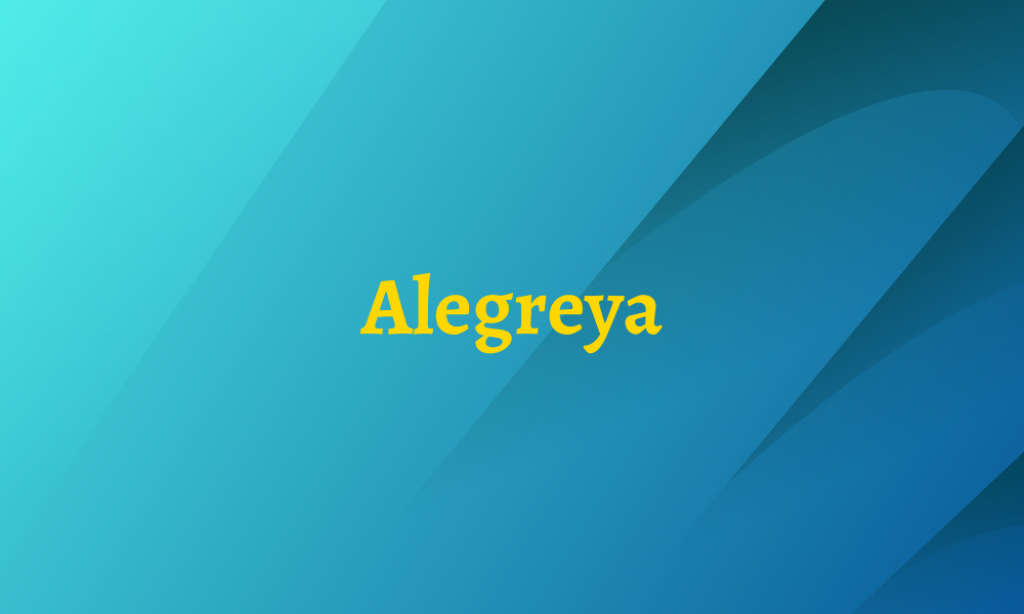
Why it is an Ideal Magazine font: Alegreya is a serif font that brings a dynamic and varied rhythm to the page, making it engaging for readers. Its slightly condensed letters with rounded features give it a warm and accessible appearance. It’s ideal for magazines because it’s highly readable in text bodies and has a distinctive character in larger sizes, which is great for headlines.
2. Arimo
Why it is an Ideal Magazine font: Arimo offers the cleanliness and neutrality of a sans-serif with the readability of classic fonts like Arial. Its open shapes and friendly curves make it versatile for both text and headlines, suitable for a modern magazine layout that requires a straightforward, approachable look.
3. Arvo
Why it is an Ideal Magazine font: Arvo is a geometric slab serif that conveys reliability and professionalism. With its strong presence and clear readability, it works well for headlines and titles, providing a stable foundation for designs that aim to be both attractive and authoritative.
4. Gilroy
Why it is an Ideal Magazine font: Gilroy is a modern sans-serif with a geometric touch. Known for its friendly yet professional appearance, it’s incredibly versatile for all types of magazine layouts, offering a wide range of weights that can fit various design needs, from bold headlines to subtle captions.
5. Josefin Sans
Why it is an Ideal Magazine font: This elegant sans-serif has a vintage yet modern feel, characterized by its geometric, clean lines and classic simplicity. Its light and airy style makes it perfect for lifestyle or fashion magazines, providing a sophisticated touch to the page.
6. Lato
Why it is an Ideal Magazine font: Lato is a sans-serif font that balances classic and contemporary tones, making it extremely versatile for magazine layouts. Its semi-rounded details and strong structure provide a sense of warmth and stability, suitable for both body text and headings.
7. Libre Baskerville
Why it is an Ideal Magazine font: Designed for digital reading, Libre Baskerville is a revival of the classic Baskerville typefaces. With its well-crafted serifs and elegant curves, it brings a timeless sophistication to magazine articles, especially in the humanities and literature fields.
8. Lora
Why it is an Ideal Magazine font: Lora is a well-balanced serif with roots in calligraphy, giving it a flowing and cohesive feel. Its brush-like curves make it ideal for magazines aiming for a refined and artistic look, without sacrificing readability in longer texts.
9. Merriweather
Why it is an Ideal Magazine font: This serif font is designed for on-screen reading, featuring large letterforms with natural, open shapes that make it easy to read in any size. Its robust yet graceful style makes it suitable for both detailed body text and impactful headlines.
10. Nunito
Why it is an Ideal Magazine font: Nunito is a well-rounded sans-serif font family that’s perfect for magazines looking for a friendly and slightly rounded typeface. It’s great for all types of content, providing a soft, approachable look while maintaining excellent legibility.
11. Playfair Display
Why it is an Ideal Magazine font: With its high-contrast letterforms and distinctive style, Playfair Display brings a touch of luxury and boldness to magazine headings and titles, reminiscent of the European Enlightenment’s typographical styles.
12. Poppins
Why it is an Ideal Magazine font: Poppins is a geometric sans-serif that offers a sleek, clean line and simple forms, making it ideal for contemporary magazines. Its uniformity and clarity make it easy to pair with more decorative fonts for a balanced layout.
13. PT Sans
Designed for use in both web and print, PT Sans is a humanist sans-serif that combines open forms with a neutral appearance, making it suitable for a wide range of magazine genres, from business to technology.
14. PT Serif
Why it is an Ideal Magazine font: The serif companion to PT Sans, PT Serif, features transitional elements and a more pronounced character. It’s excellent for editorial content in magazines, offering both elegance and excellent readability.
15. Quicksand
Why it is an Ideal Magazine font: This sans-serif font has rounded letterforms and a clean, minimalist style. Its light and airy appearance makes it ideal for casual, lifestyle, or fashion magazines that aim for a modern, friendly vibe.
16. Raleway
Why it is an Ideal Magazine font: Originally designed as a single weight, Raleway has evolved into a family that is both elegant and versatile. Its clean lines and sophisticated look make it perfect for high-end magazine layouts that require a touch of finesse.